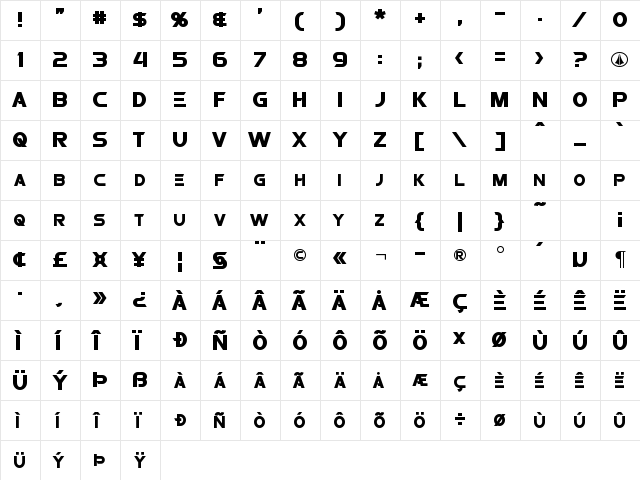
Protoculture Regular
| Foundry | Neale Davidson |
| Designer | Neale Davidson |
Design Context for Protoculture Typeface
Protoculture takes a measured approach to typography — its balanced proportions and neutral character make it a reliable workhorse for both digital and print work.